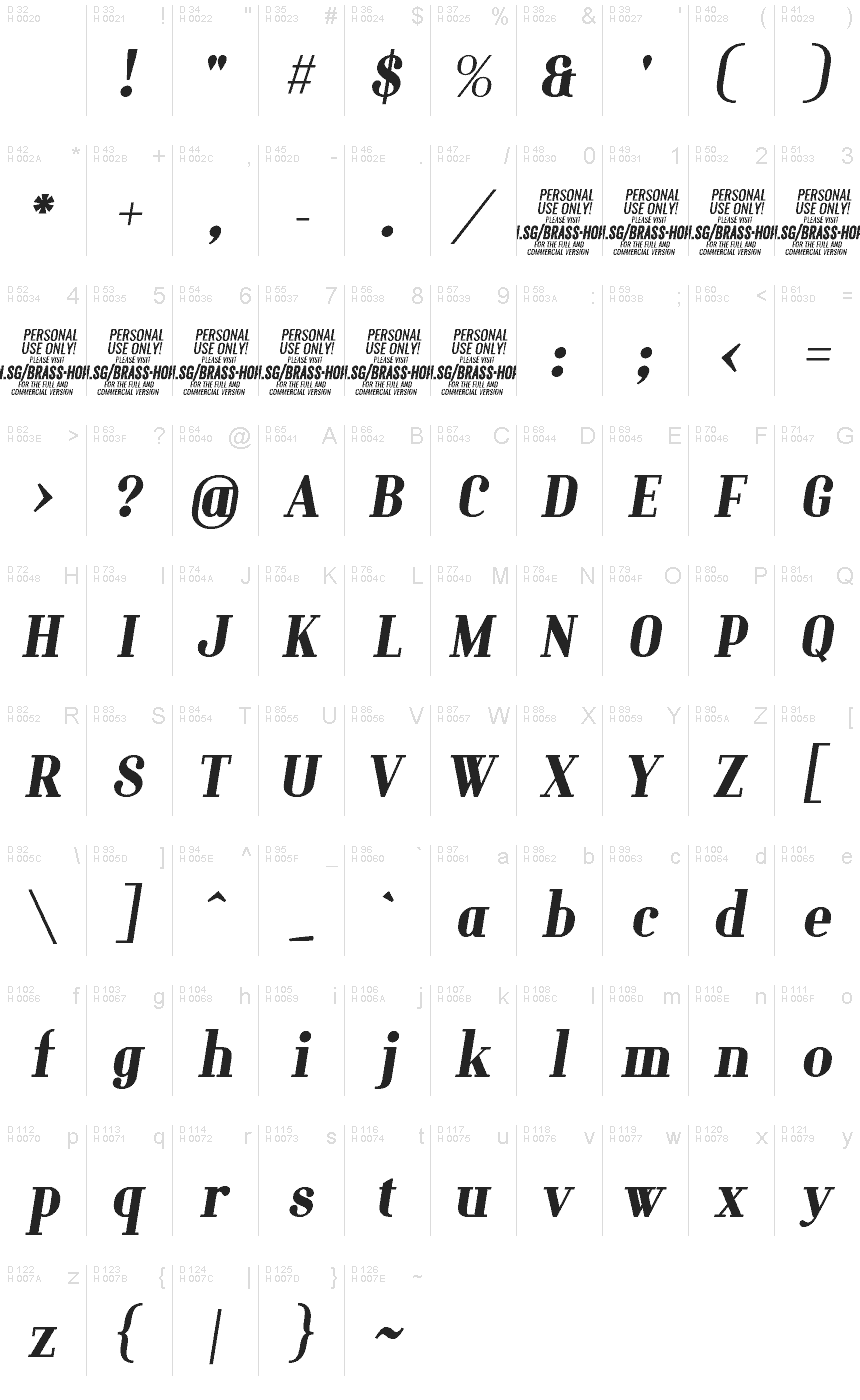
Brass Hopper Body PERSONAL Black Italic
Brass Hopper Body Black Italic font by Mans Grebäck is an elegant, sophisticated, and classic serif font. A modern geometrical typeface characterized by its sleek shapes, it embodies structural design with a vintage-inspired appearance. Its graceful mood comes from its traditional serif elements and the stylish use of bold weight.
The free serif font is for luxury branding, cosmetic or fashion blogs, product labels and packaging design projects. It perfectly complements classy catalog interiors, luxury invitations/ P.O.S retail display designs as well as urban billboard graphics with a touch of formality.
Brass Hopper Body is a serif font that embodies structural design.
As a modern geometrical typeface, Brass Hopper is characterized by its strict shapes and a touch of formality.